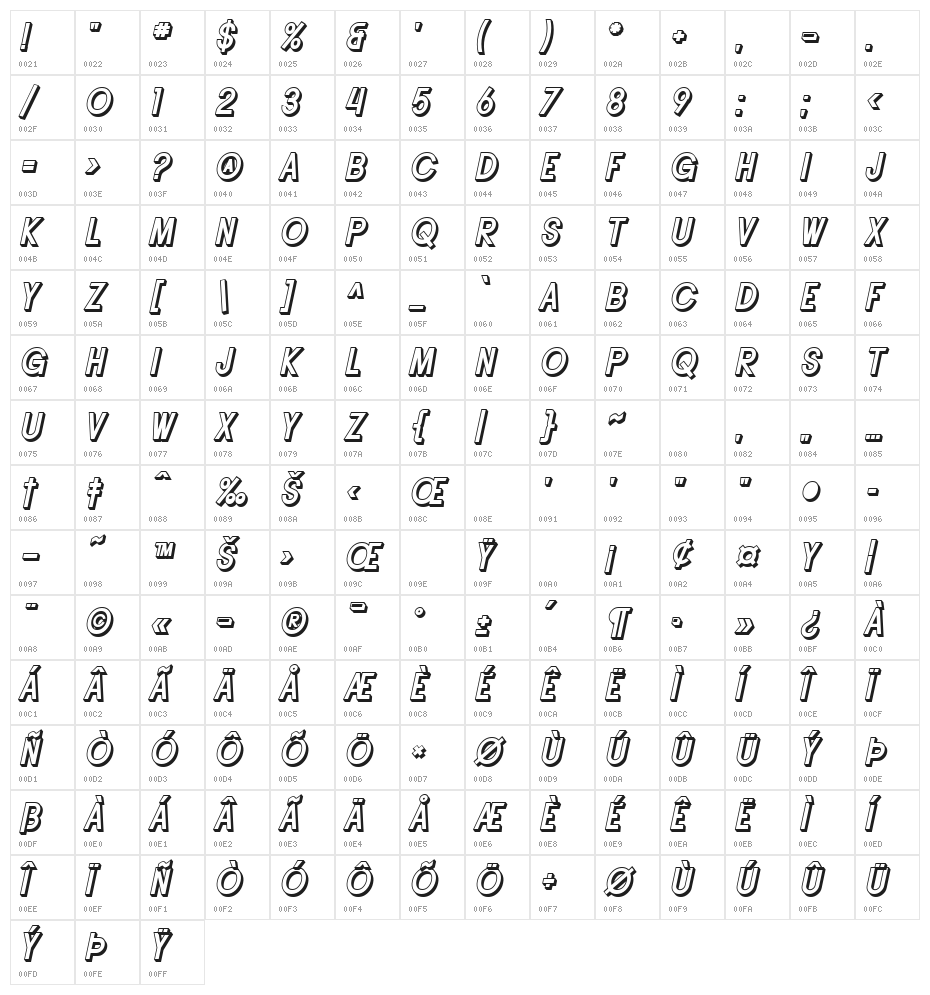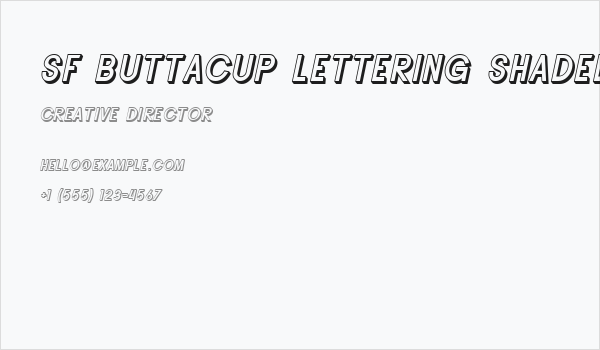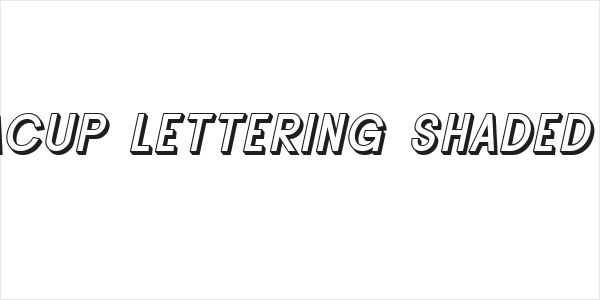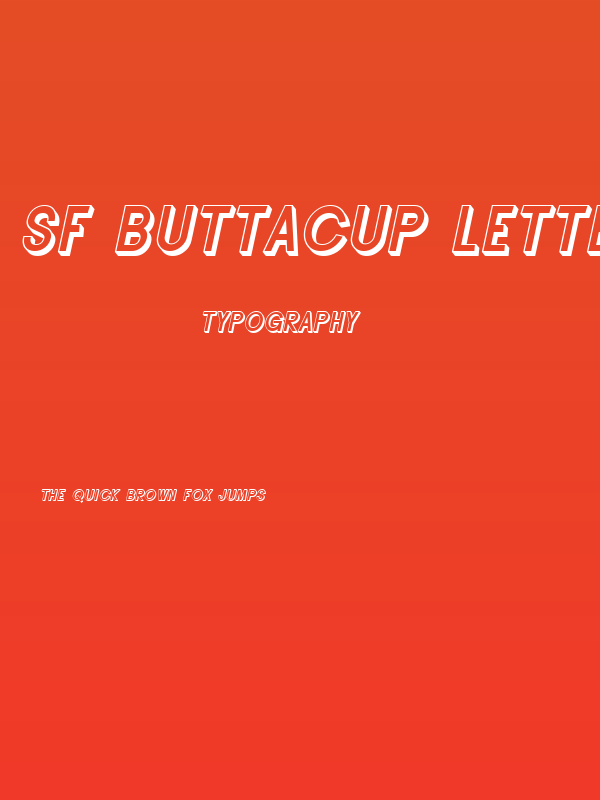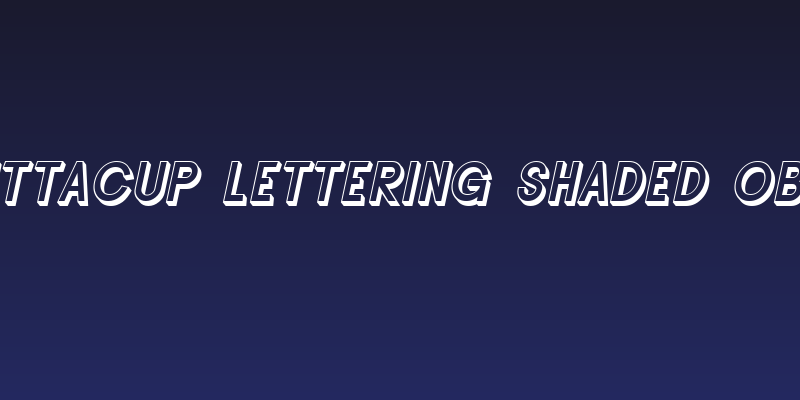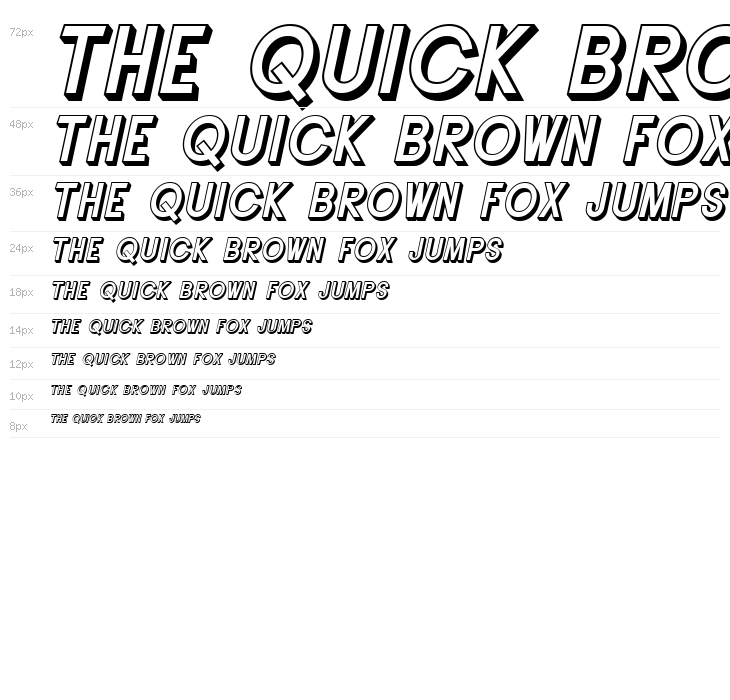
SF Buttacup Lettering Shaded Oblique Font
SF Buttacup Lettering Shaded Oblique Description
This font features a bold, three-dimensional appearance with a distinct oblique slant, giving it a dynamic and energetic feel. The letters are outlined with a thick shadow, enhancing the 3D effect and making each character stand out prominently. The style is playful yet assertive, making it suitable for attention-grabbing designs. The uppercase and lowercase letters maintain a consistent style, with numerals and special characters following the same design principles. The font's shading adds depth and a sense of movement, making it ideal for projects that require a bold statement.
| Proposed Projects | Ideal for posters, headlines, logos, and any design needing a bold, eye-catching typeface. |